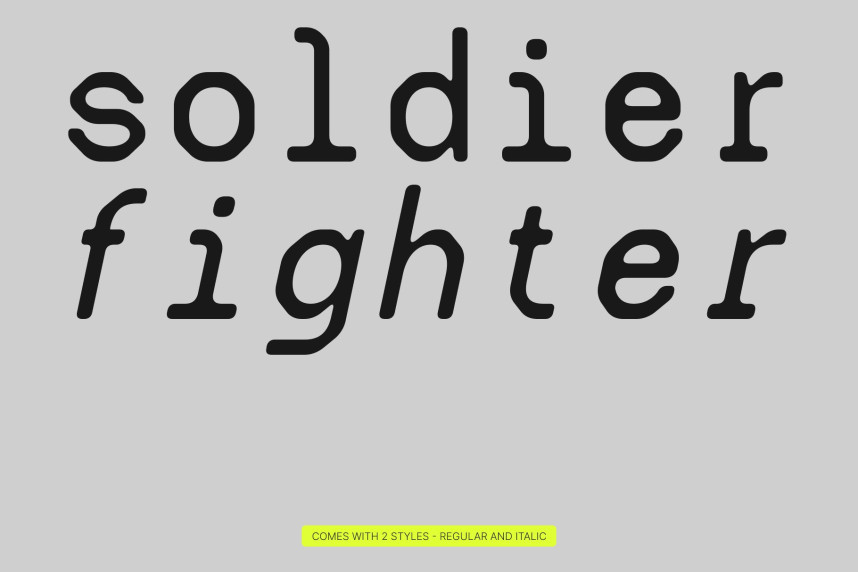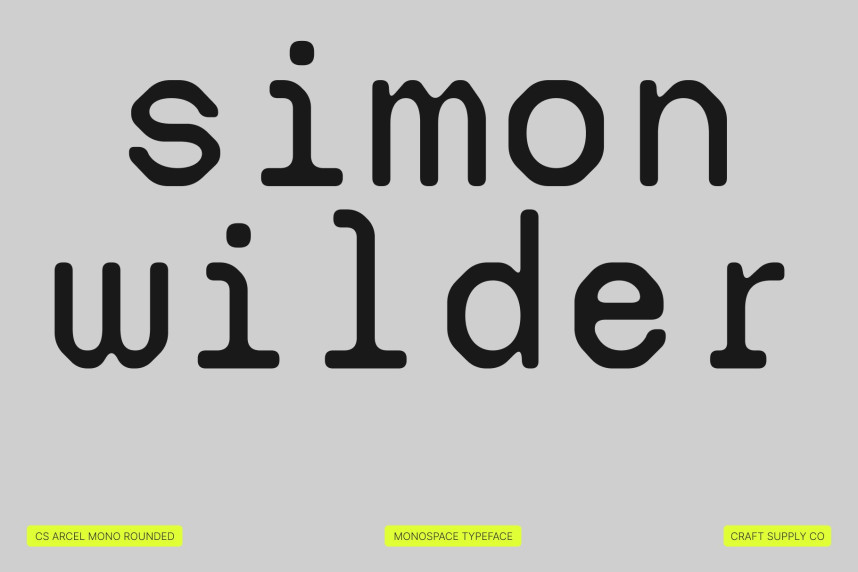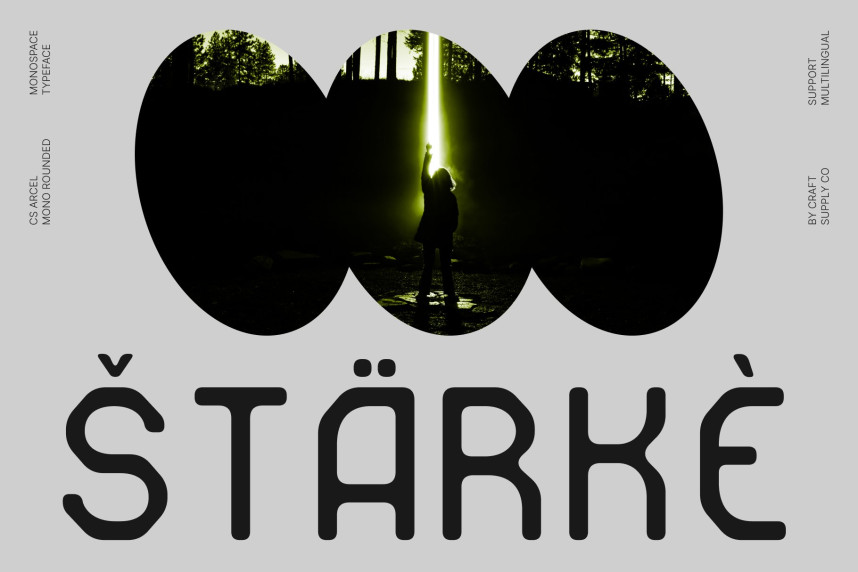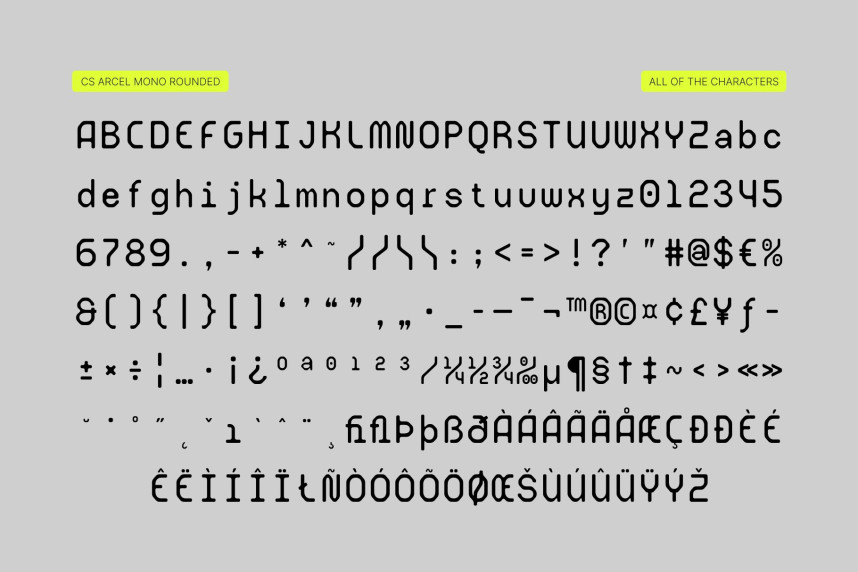
CS Arcel Mono Rounded Font
CS Arcel Mono Rounded Font – Monospaced Sans Serif Rounded Font Monospaced Structure for Perfect Alignment. This is a monospaced sans serif font where every character occupies the same horizontal space, ensuring consistent alignment and a perfectly organized layout. This uniform structure enhances clarity and precision, making it ideal for technical documents, coding environments, and tabular data.